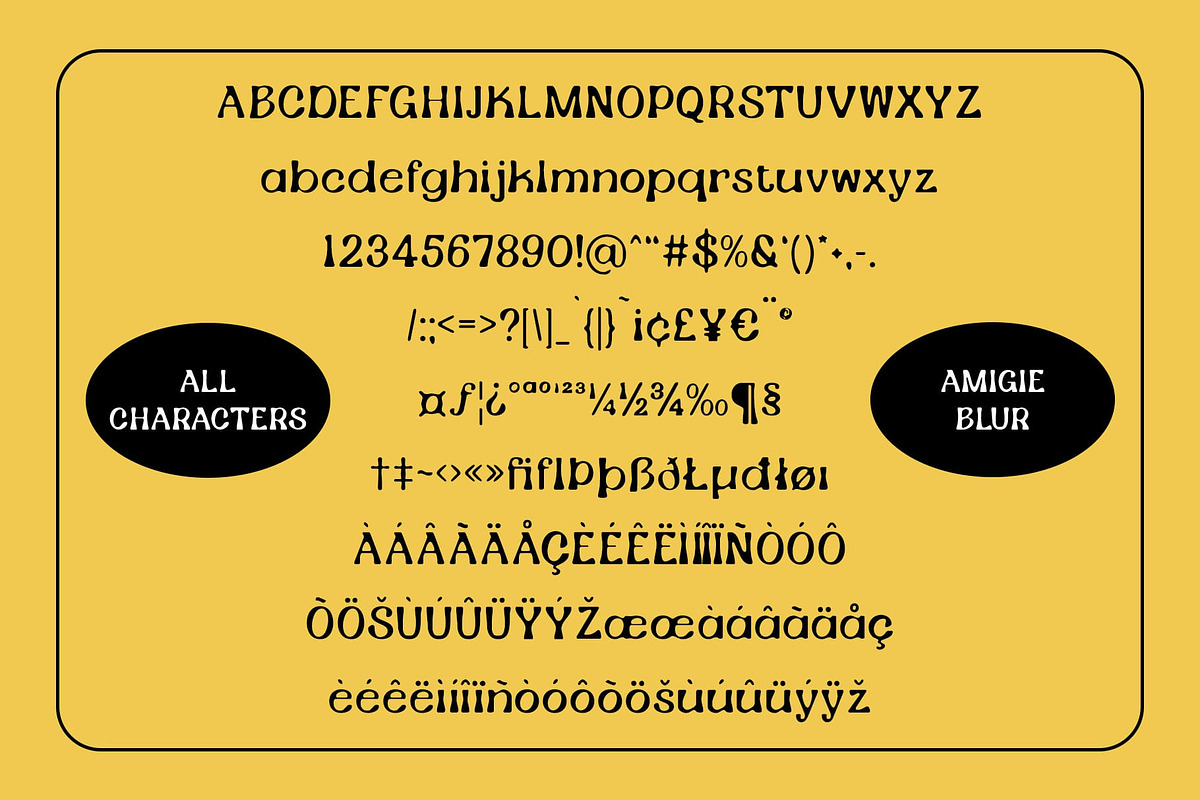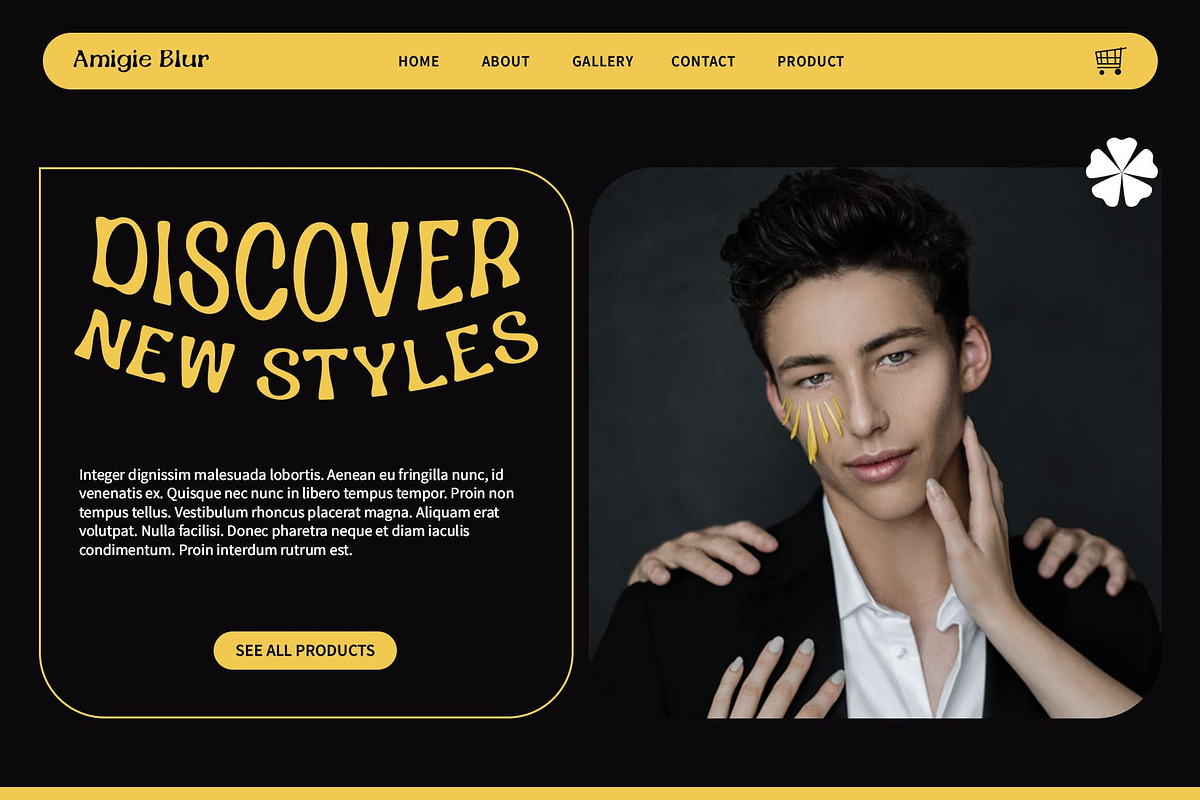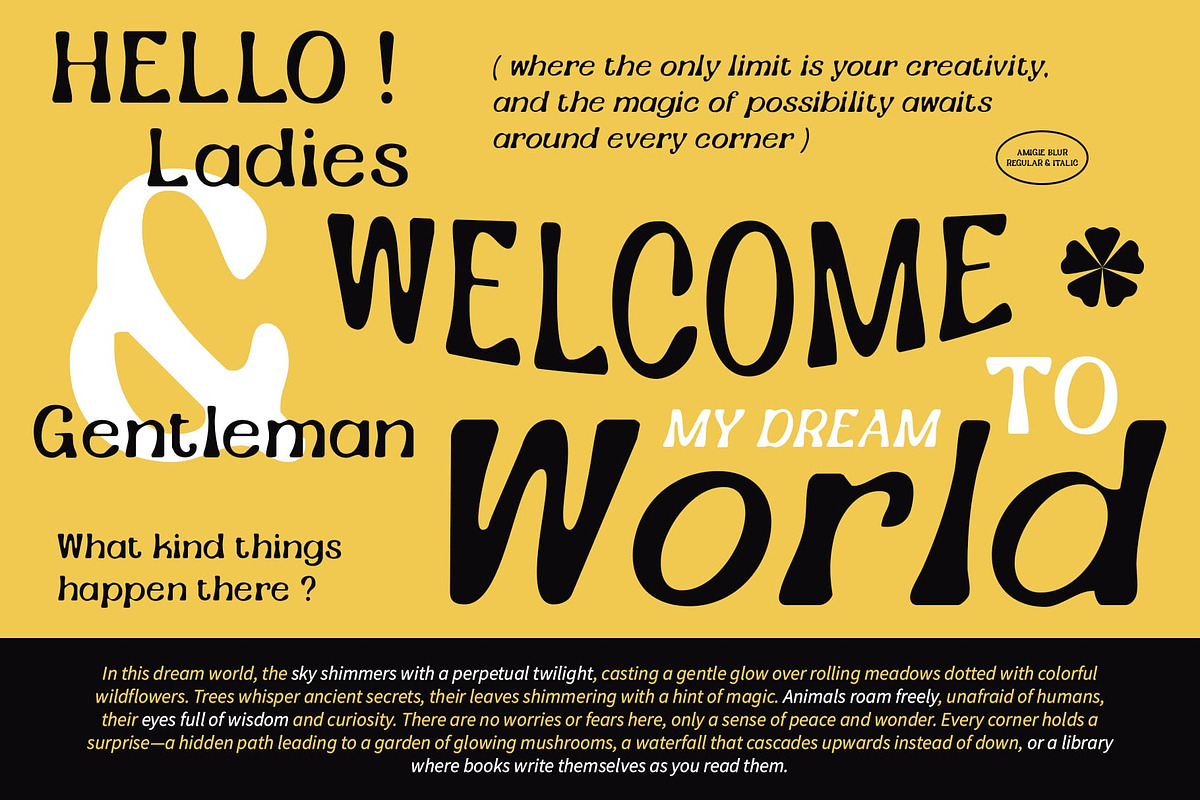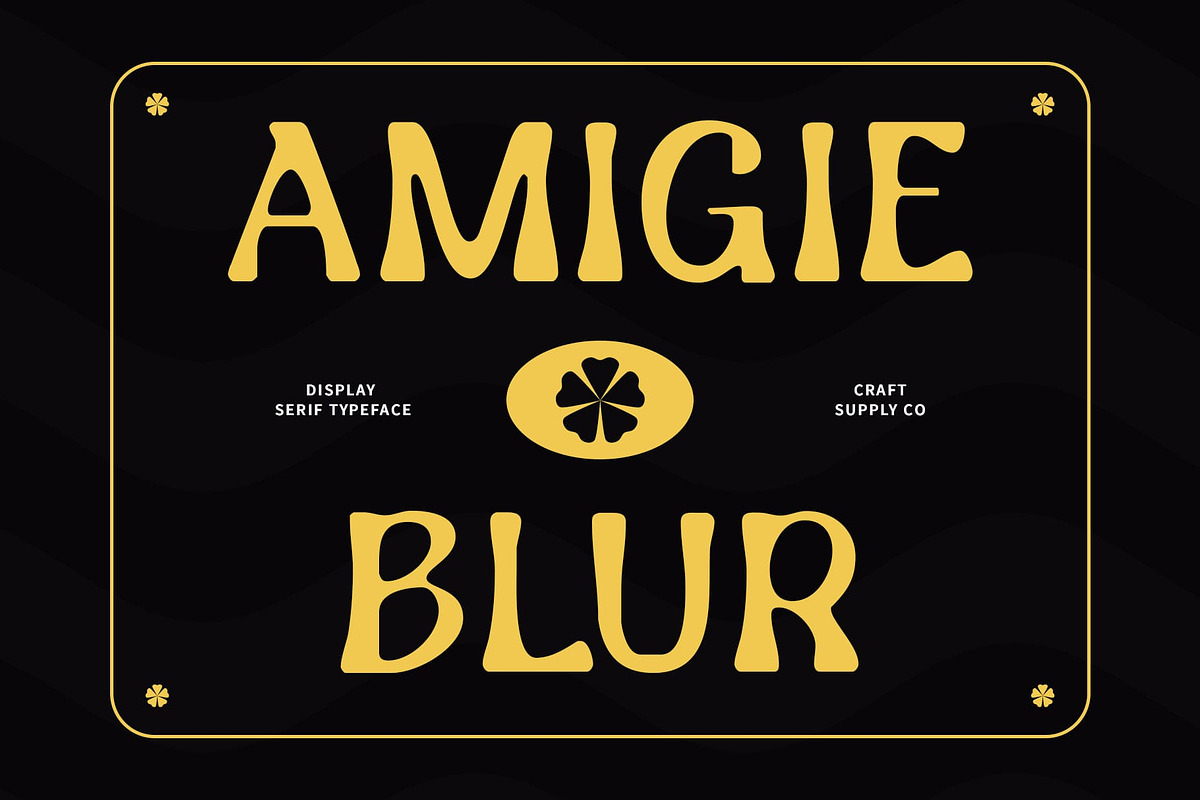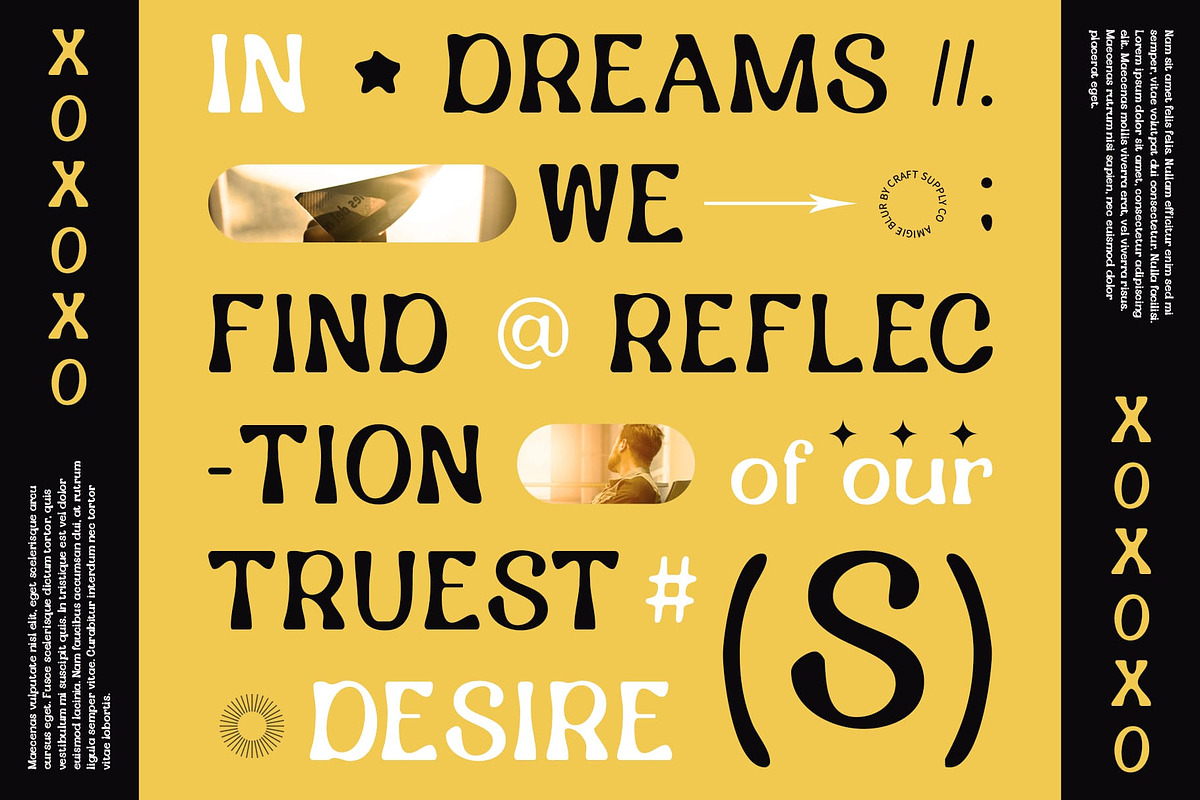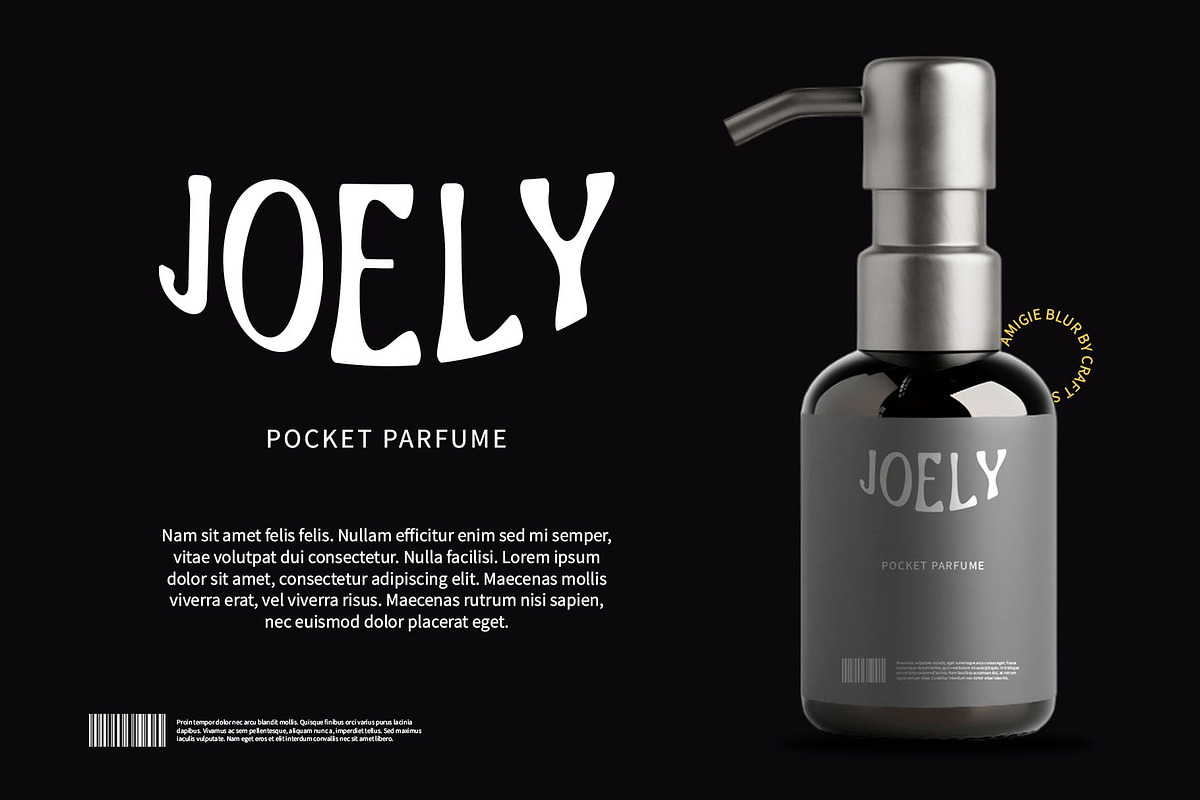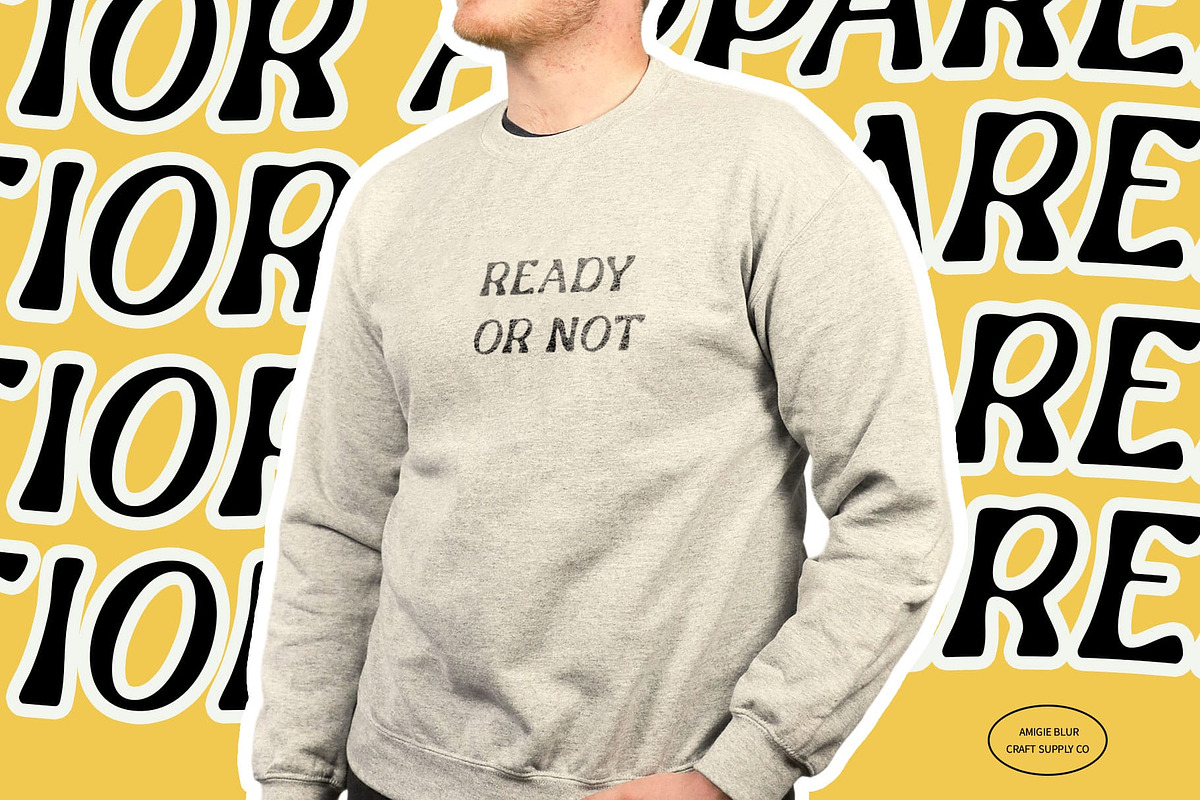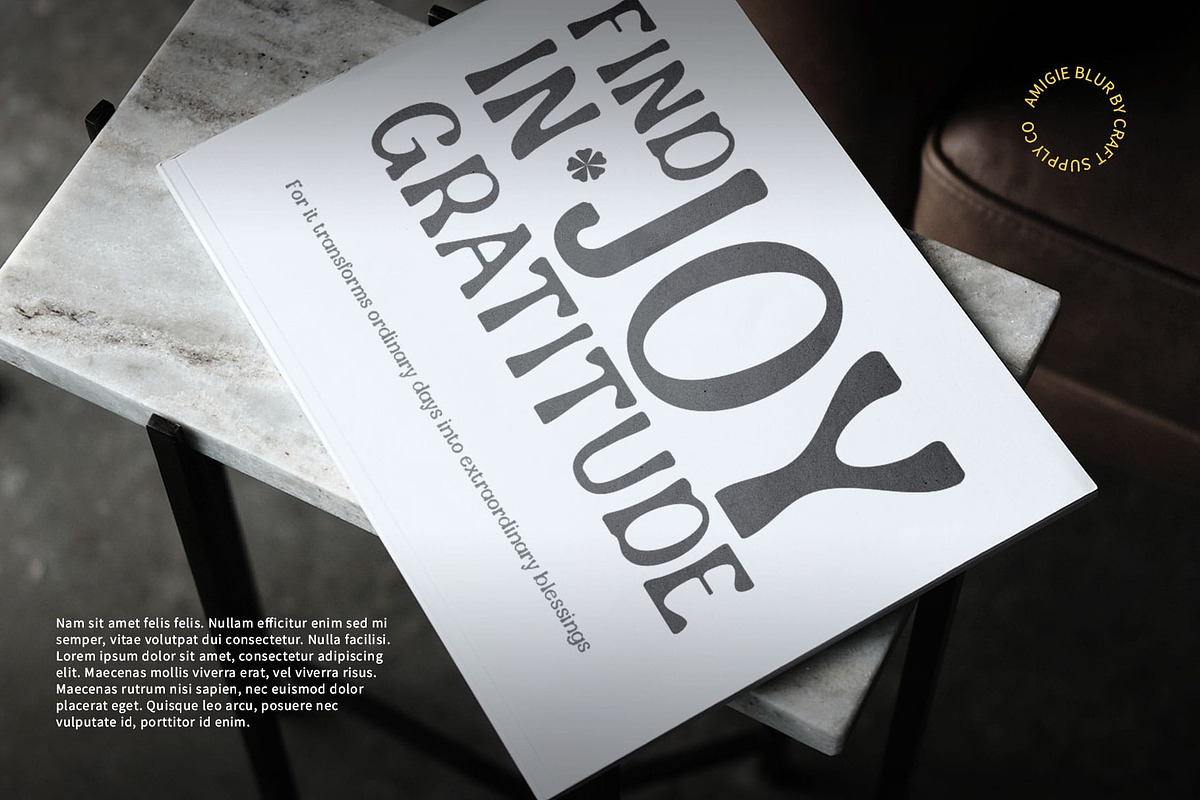
Amigie Blur
Amigie Blur: Serif Font with a Cute and Funky Vibe
Display Serif with Blur Effect
Amigie Blur is a serif font that exudes a cute and funky vibe, enhanced by a unique blur effect. This font introduces an intriguing and unconventional touch to designs, making it an ideal choice for projects that prioritize a distinct visual style.
Distinctive Visual Appeal
The charm of Amigie Blur lies in its ability to merge playful elements with a classic serif structure. Each character is carefully crafted to maintain readability while adding a whimsical blur effect that captivates attention and enhances visual interest.
Perfect for Creative Projects
Whether used for branding, posters, packaging, or editorial designs, Amigie Blur stands out with its unique blend of creativity and charm. Its playful vibe and distinctive blur effect ensure that text not only communicates effectively but also leaves a lasting impression on viewers.
Explore Creativity with Amigie Blur
Infuse your designs with personality and creativity using Amigie Blur. This font is designed to elevate your projects by offering a fresh and unconventional approach to typography, ensuring that your message is conveyed with style and impact.
- Amigie Blur Regular
- Amigie Blur Italic